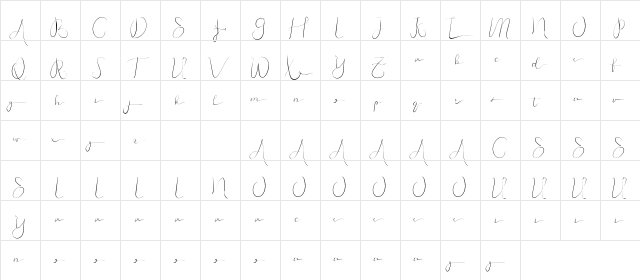
Ghaniya Holmy Demo Regular
| Foundry | Edric Studio |
| Designer | Saila Nurissalma & Suci Anita |
Design Context for Ghaniya Holmy Demo Typeface
Ghaniya Holmy Demo is a composed and adaptable typeface that performs quietly and consistently across a wide range of design contexts.